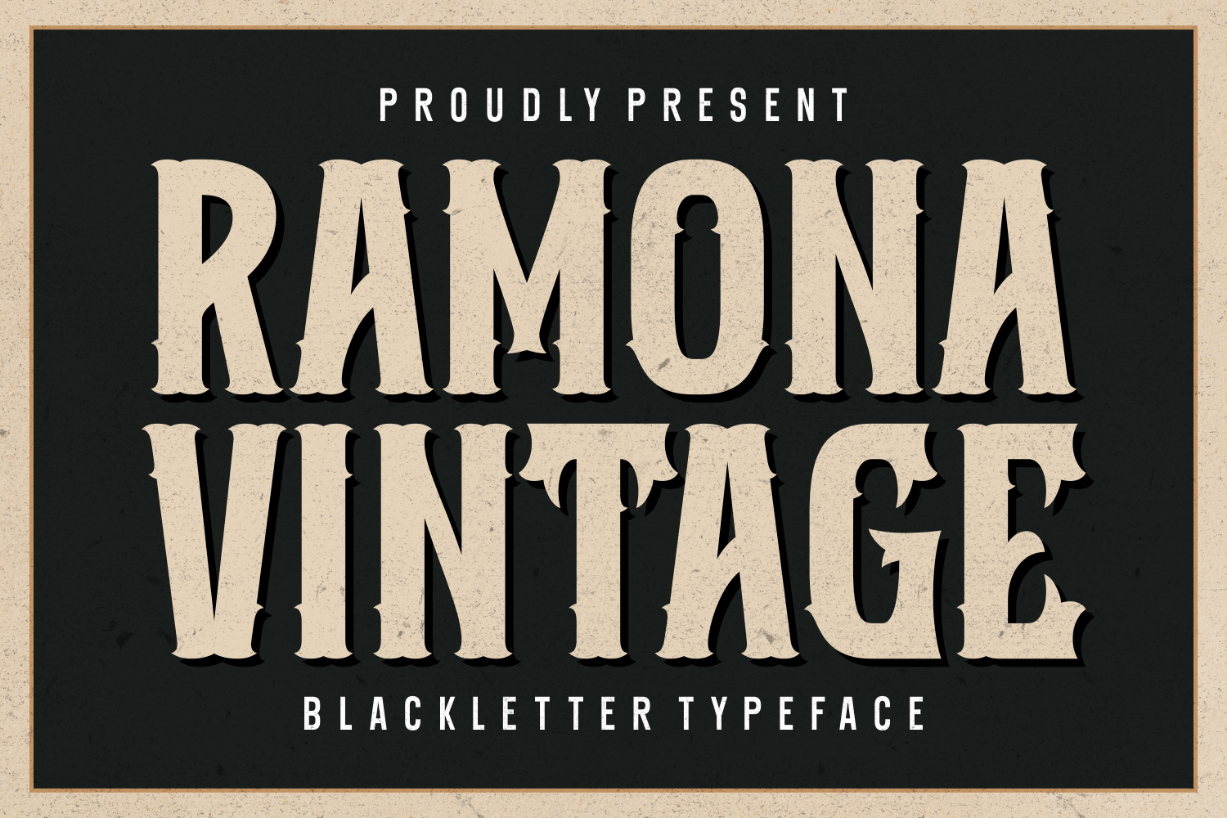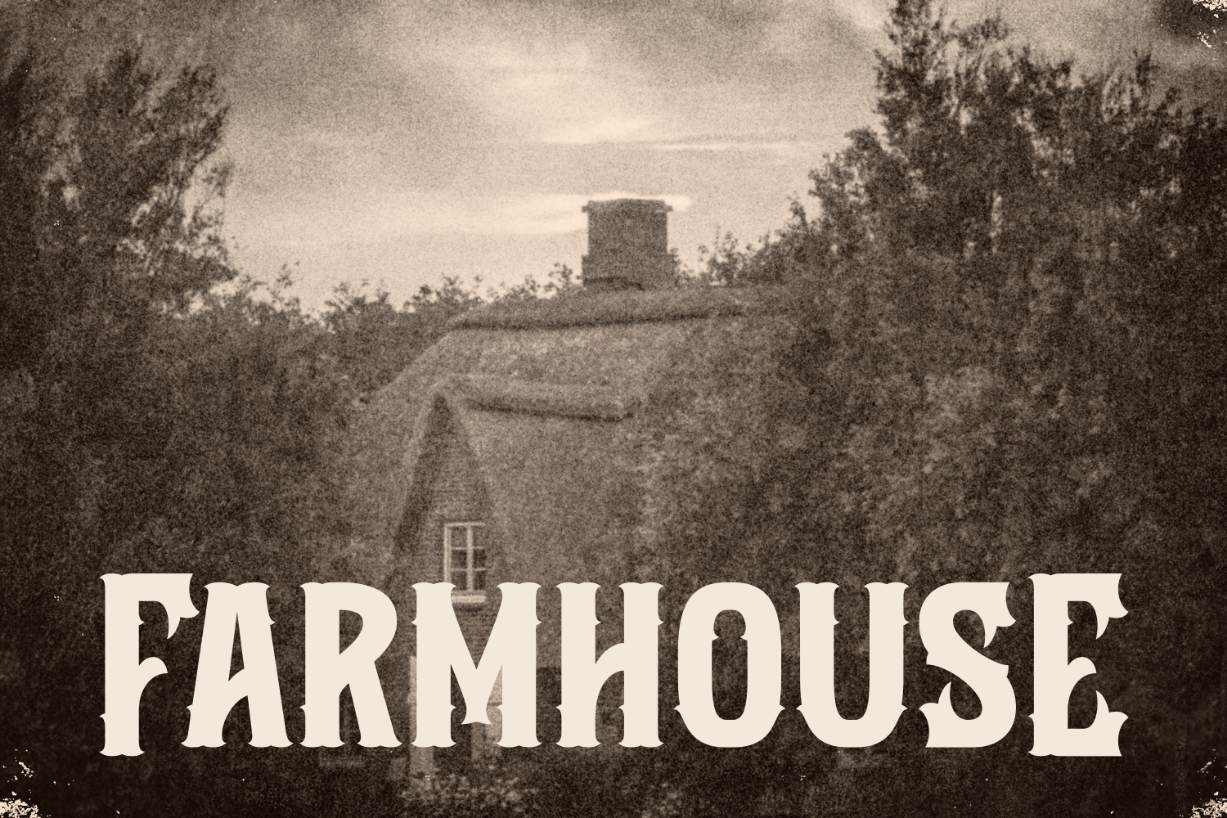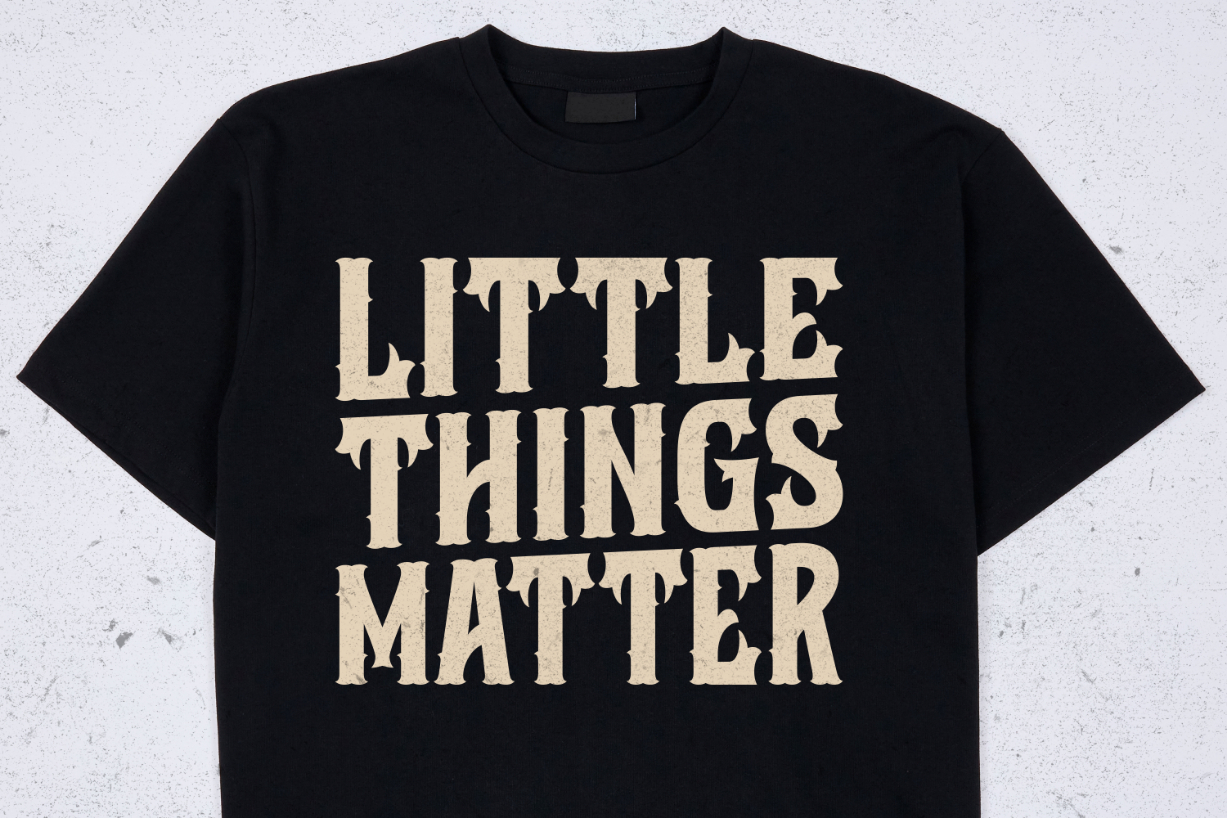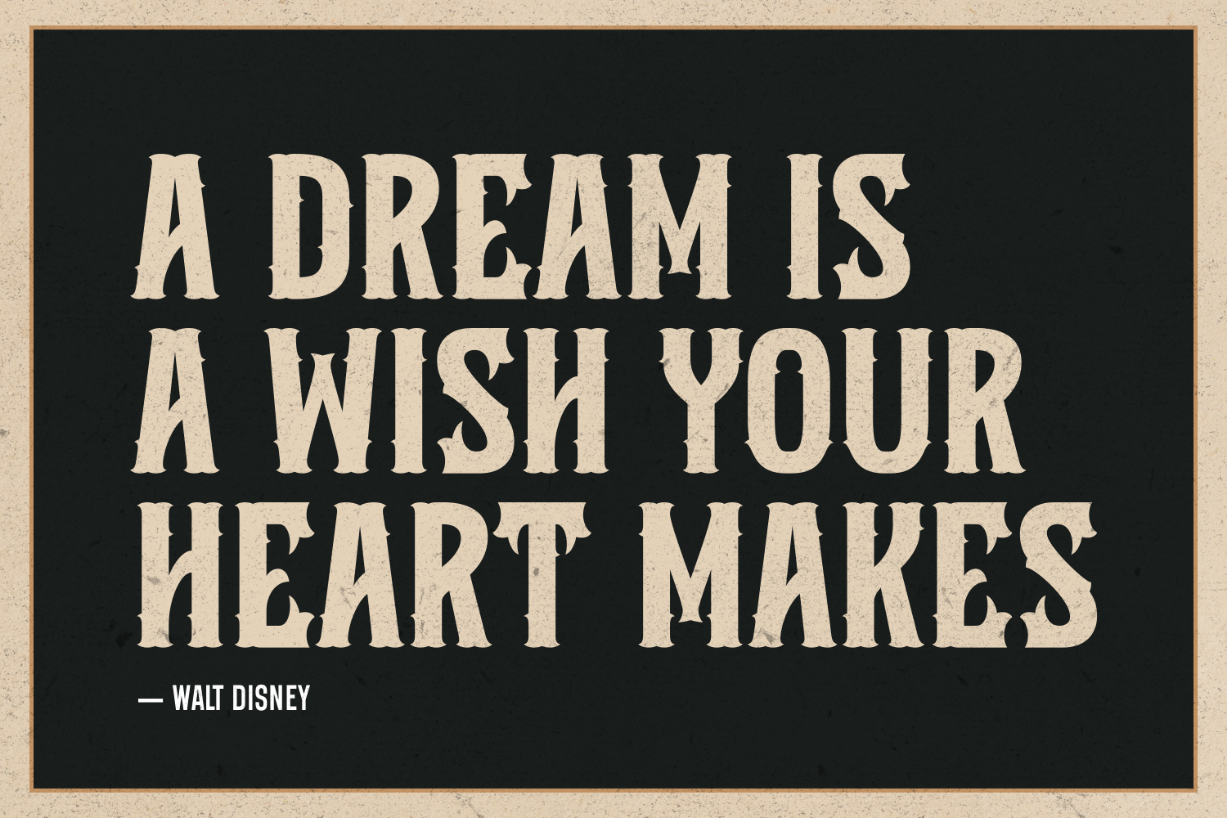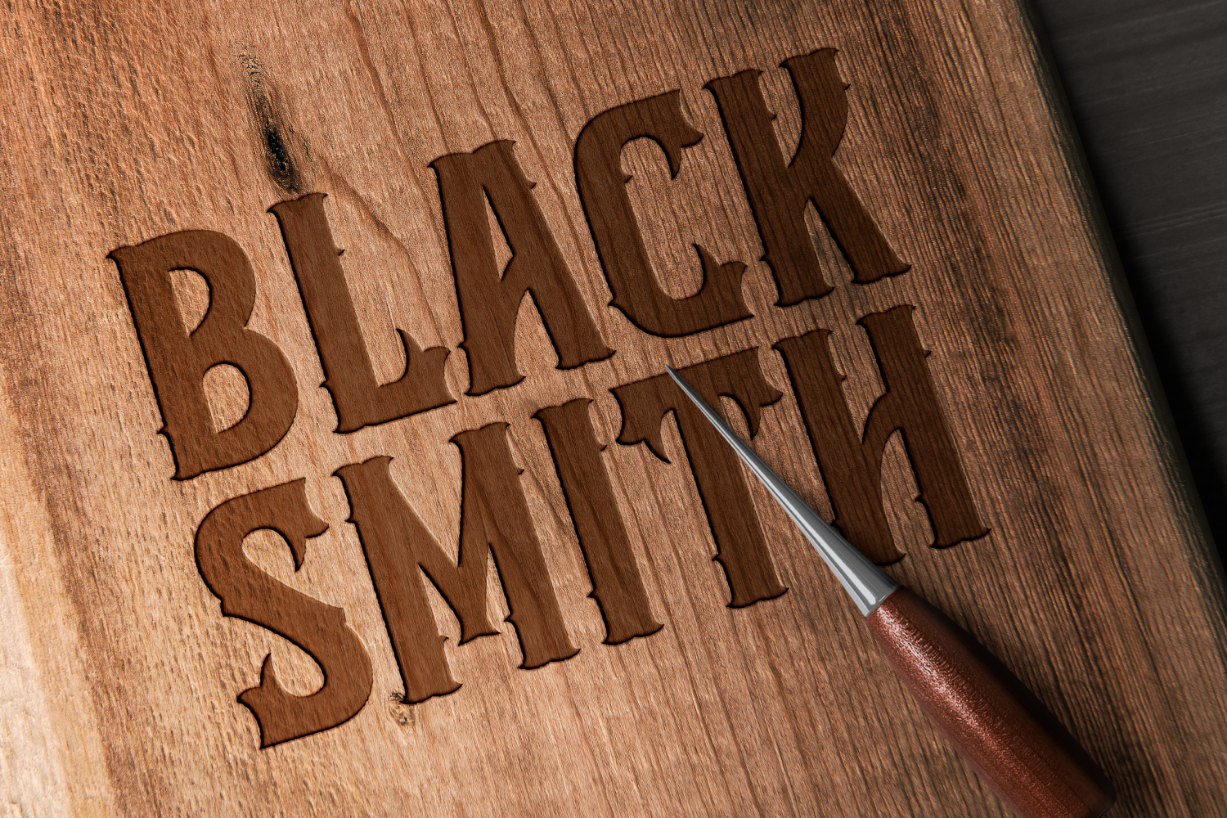
Ramona Vintage Font
About Ramona Vintage Font
Ramona Vintage is a chunky, thick-bodied blackletter font. Thick and beautiful, this impressive typeface is perfect for creating eye-catching typography. Use it to bring life to posters, advertisements, t-shirts, logos, websites, headlines, signage, and more.